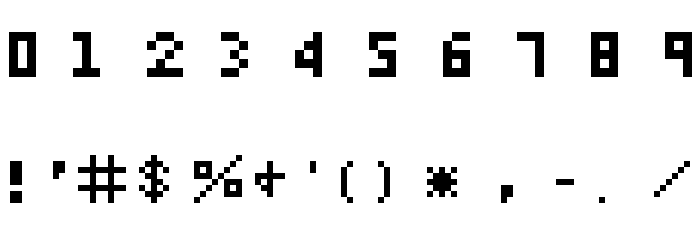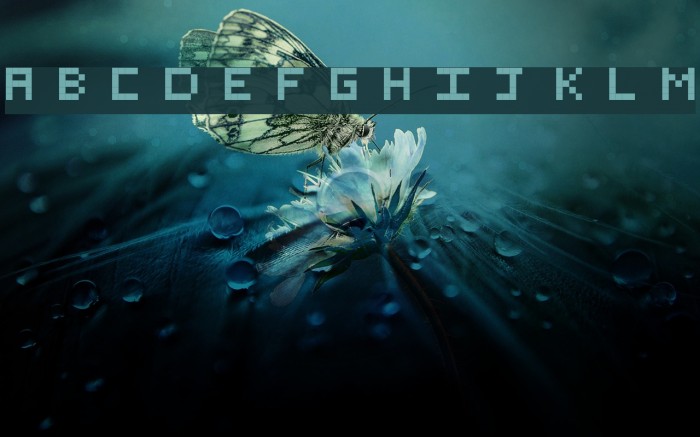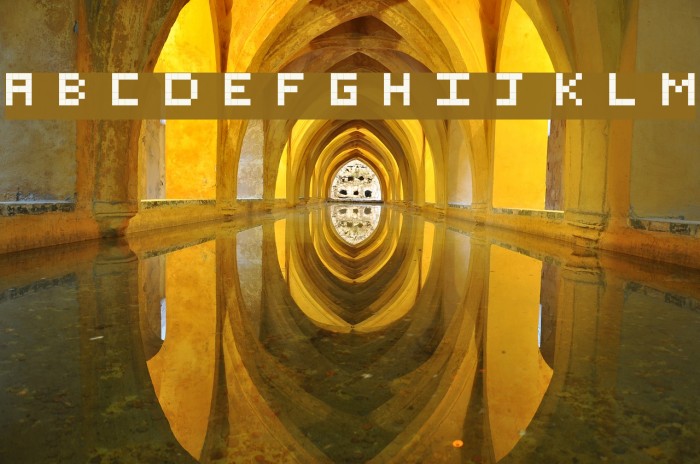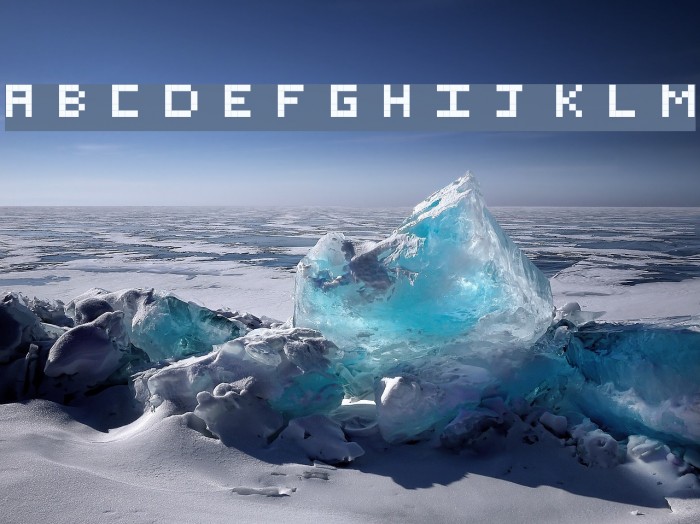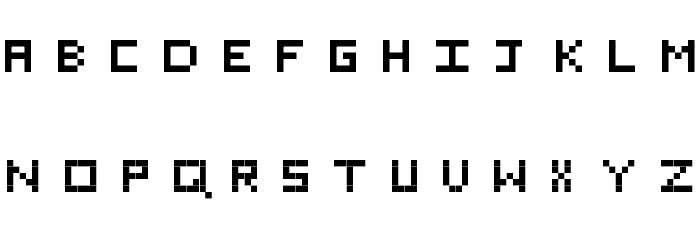
Eichante Font
Eichante Description
This font features a pixelated, blocky design reminiscent of early digital displays and retro video games. Each character is constructed with a grid-like precision, giving it a distinctly digital and geometric appearance. The uniformity in stroke width across all characters contributes to a cohesive and structured look. The font maintains a consistent height and width for each letter, number, and symbol, enhancing its monospaced nature. This design choice makes it ideal for applications where alignment and spacing are crucial. The simplicity and clarity of the characters ensure legibility even at smaller sizes, while the nostalgic aesthetic adds a playful, vintage charm.
| Categories | Pixel |
| Overall Style | Vintage |
| Use Case | Headlines, Digital displays, Coding |
| Proposed Projects | Ideal for retro-themed designs, video game interfaces, digital art projects, and coding environments. |